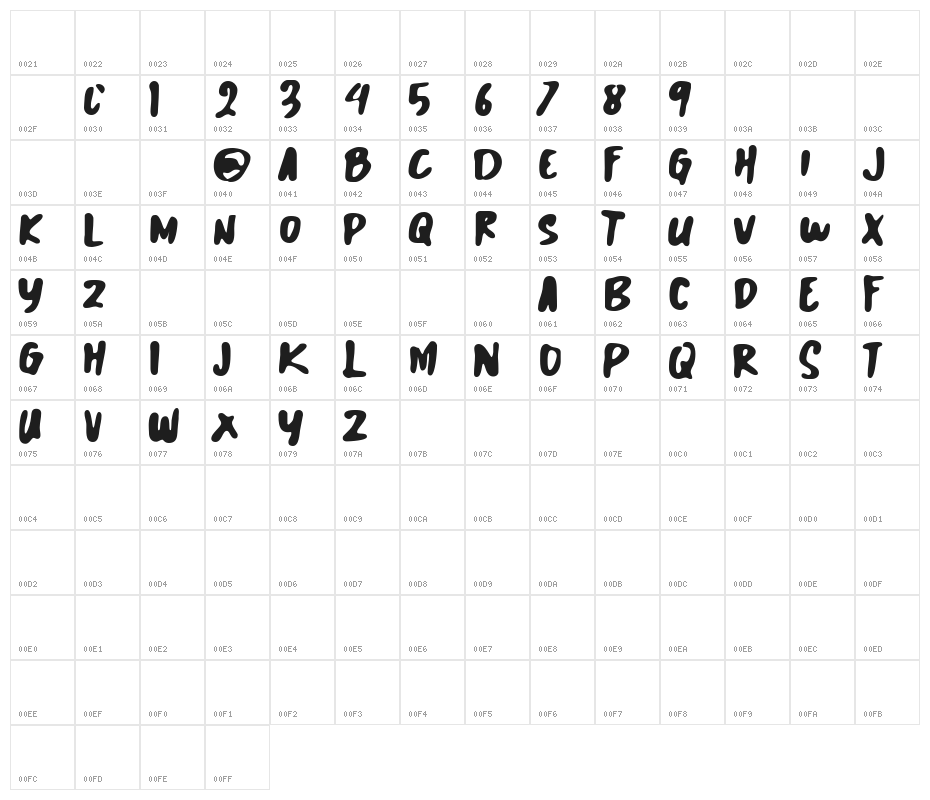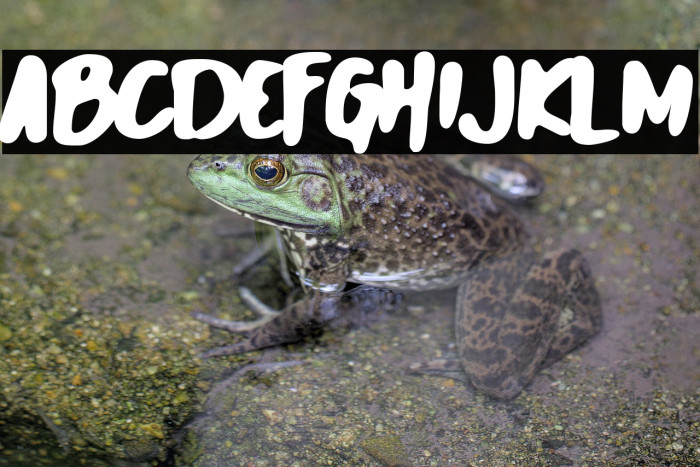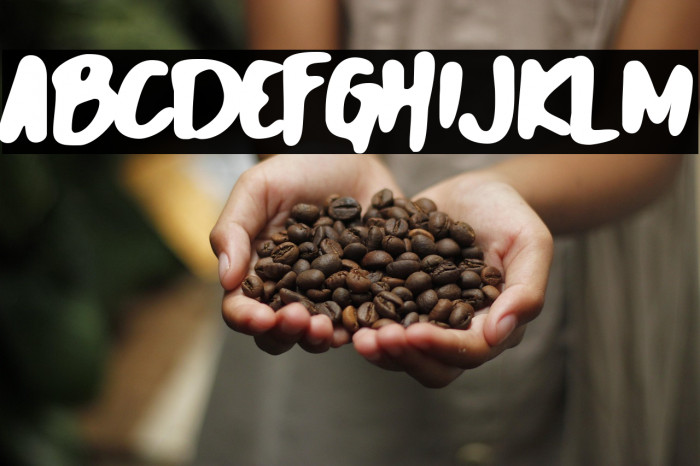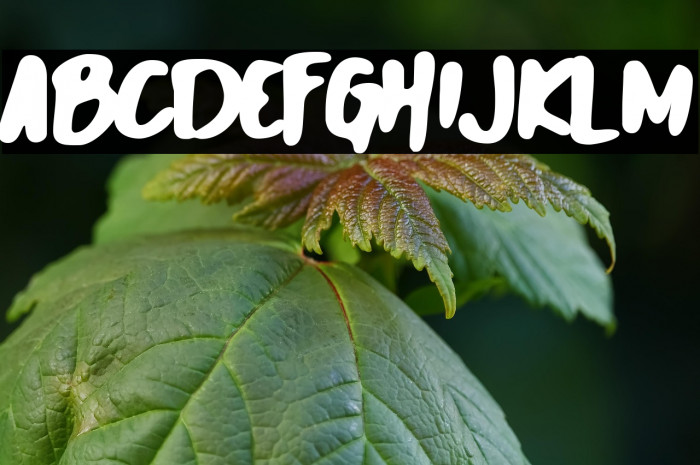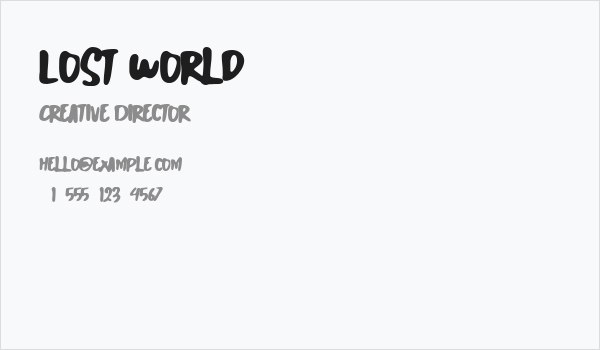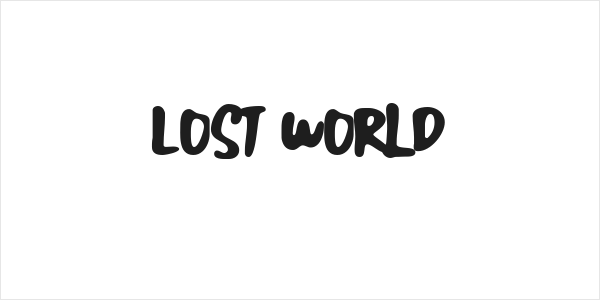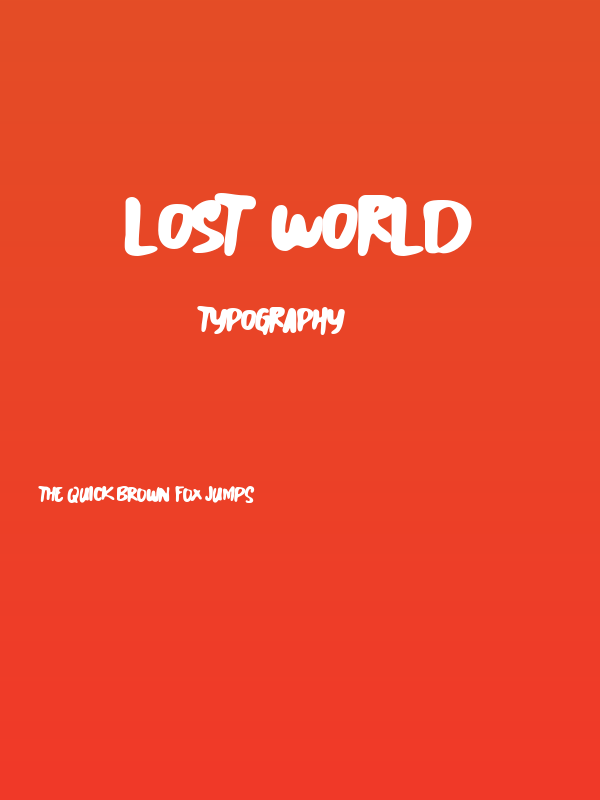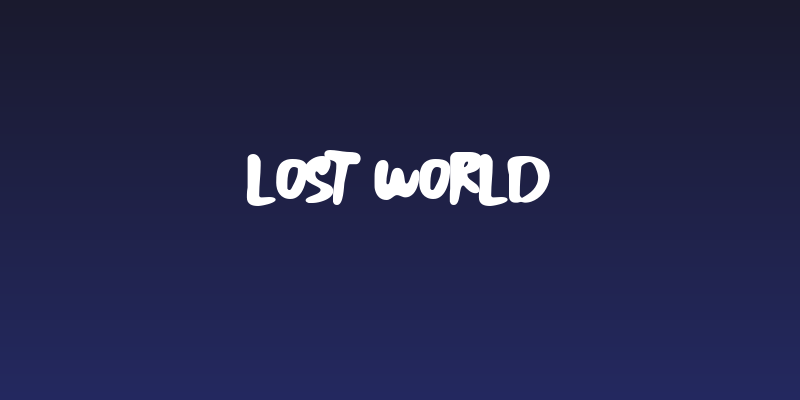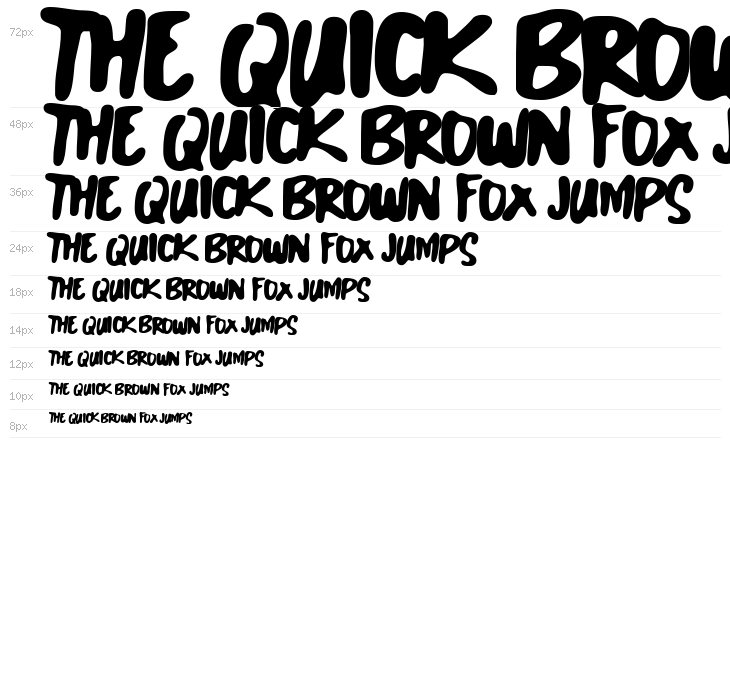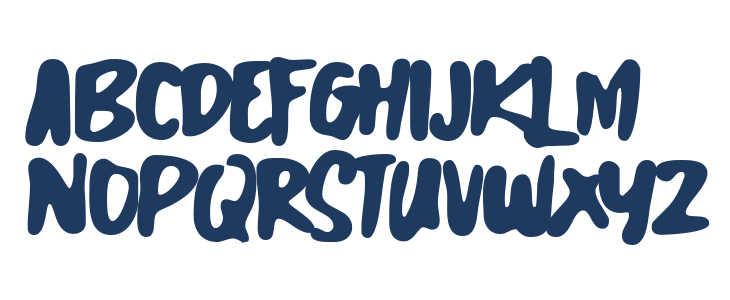
Lost World Font
Lost World Description
This font features a bold and playful style with thick, rounded strokes that give it a lively and energetic appearance. The characters are slightly irregular, adding a hand-drawn feel that enhances its casual and friendly vibe. The uppercase and lowercase letters maintain a consistent weight, contributing to a cohesive look. The numbers and special characters are designed with the same playful aesthetic, making them stand out while remaining harmonious with the alphabet. This font's unique style is perfect for projects that require a touch of fun and creativity.
| Proposed Projects | Ideal for children's books, playful branding, posters, and creative social media graphics. |